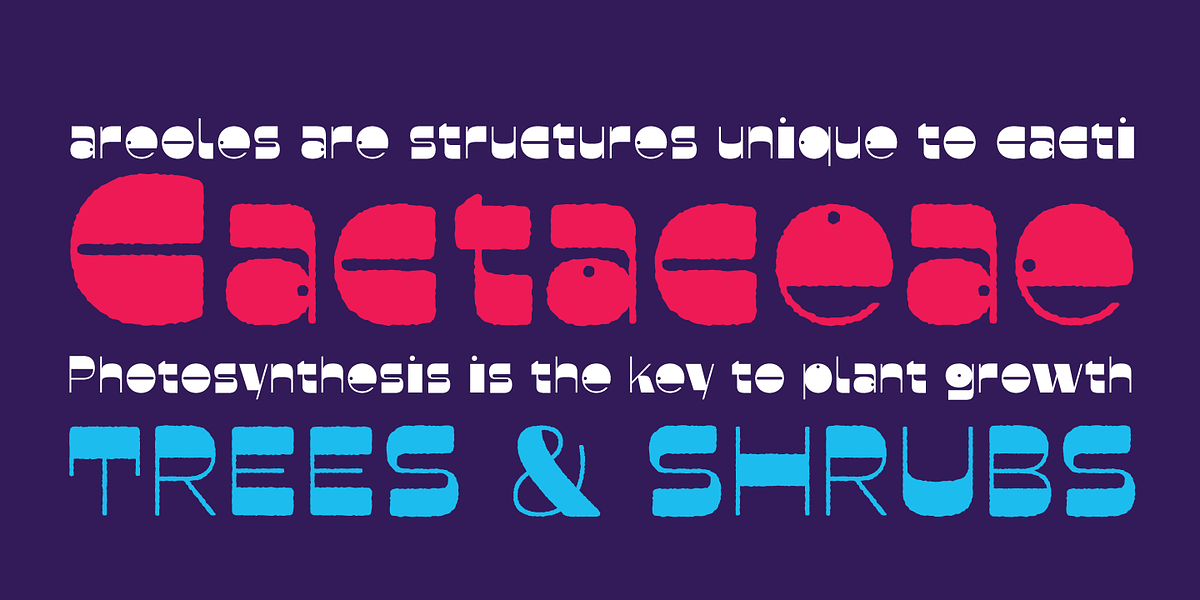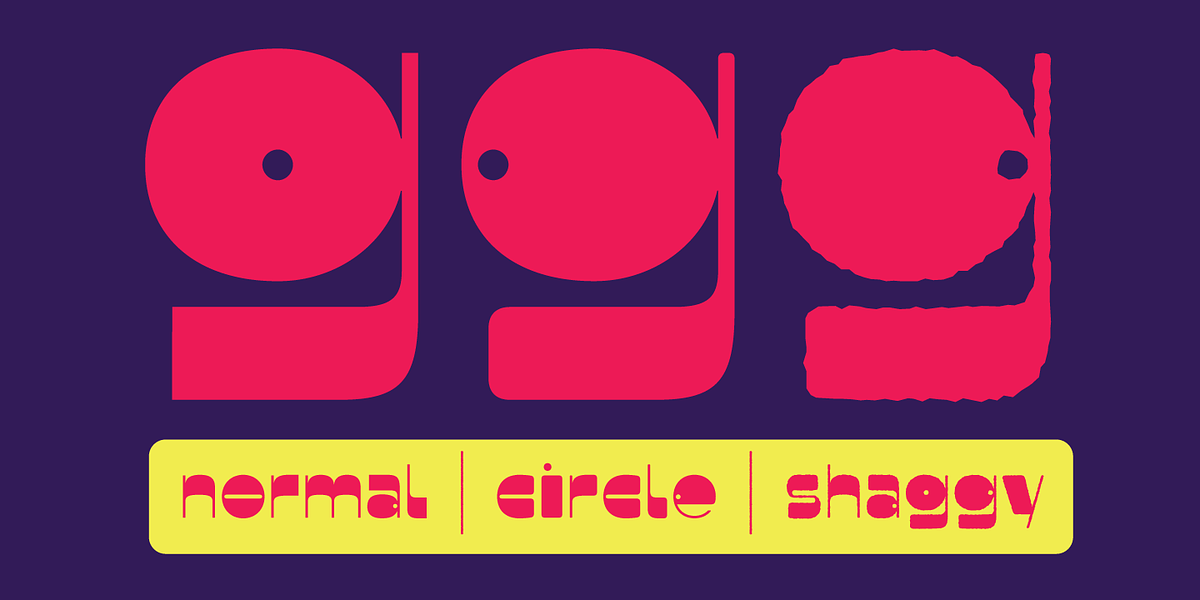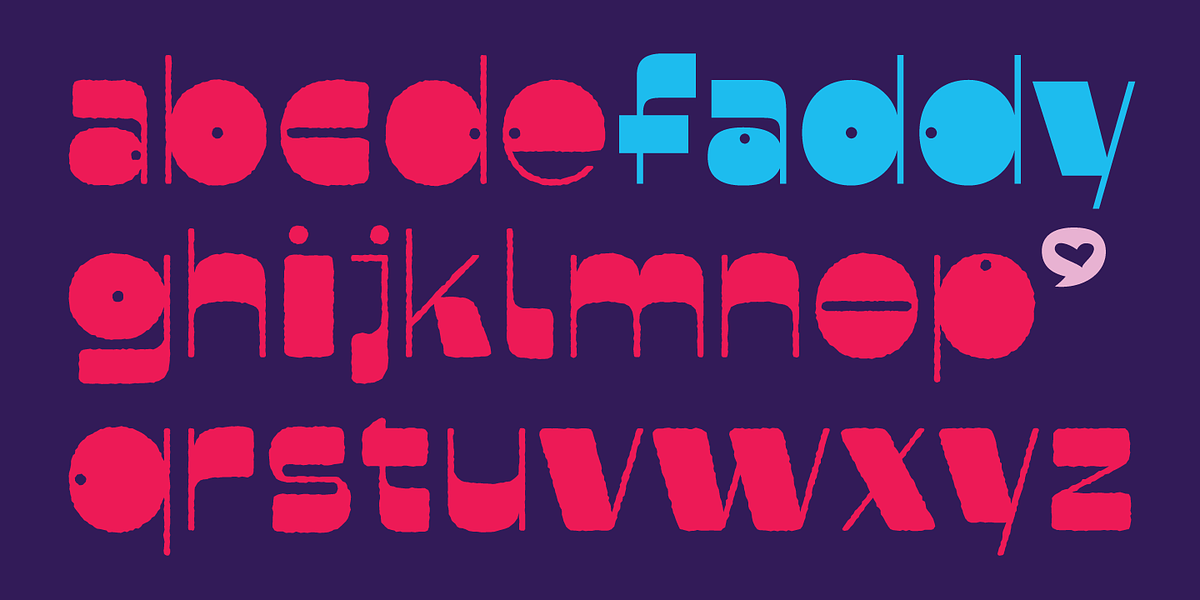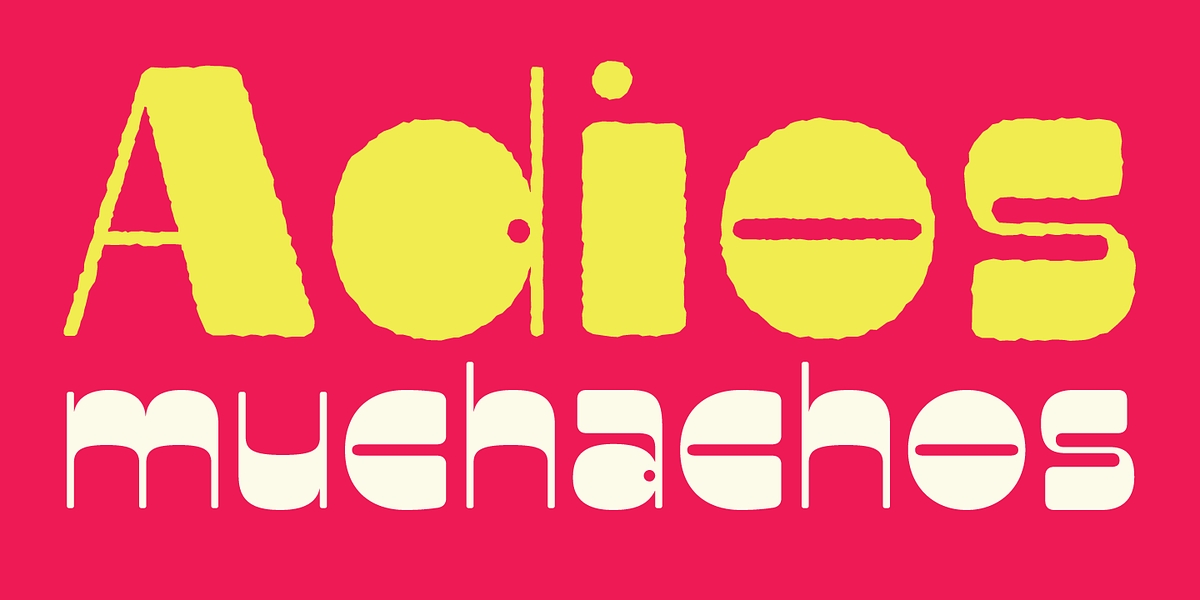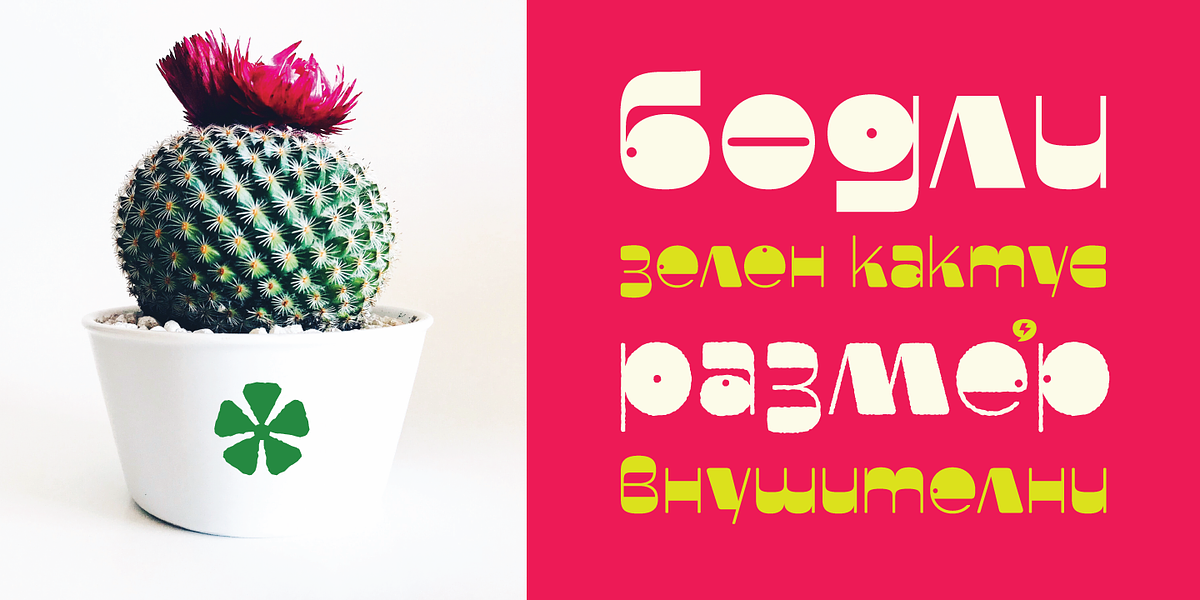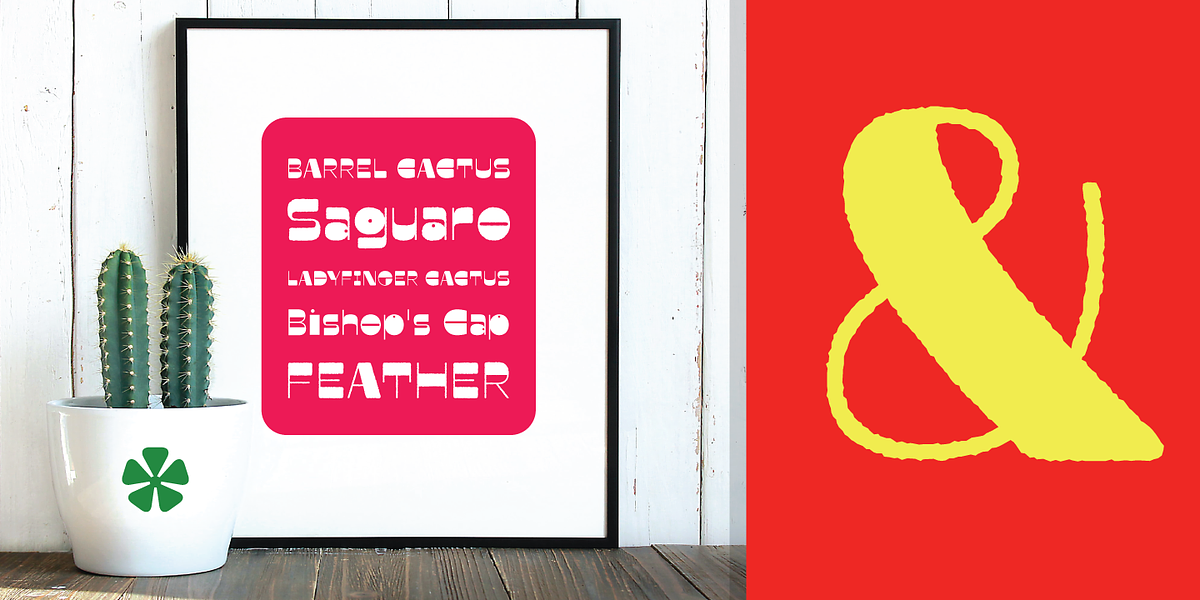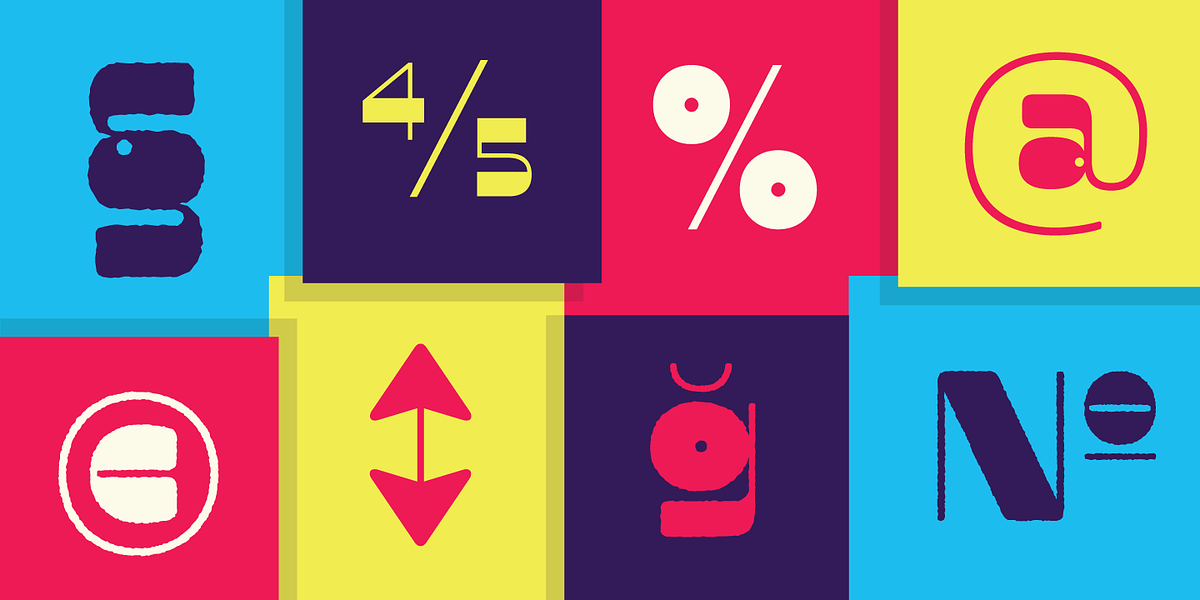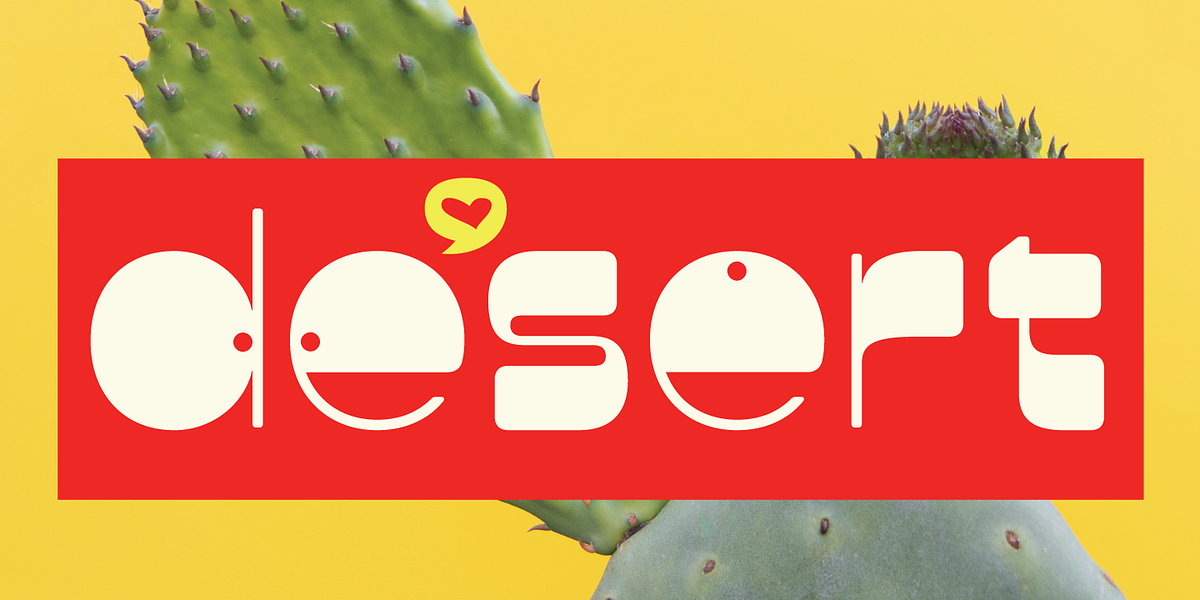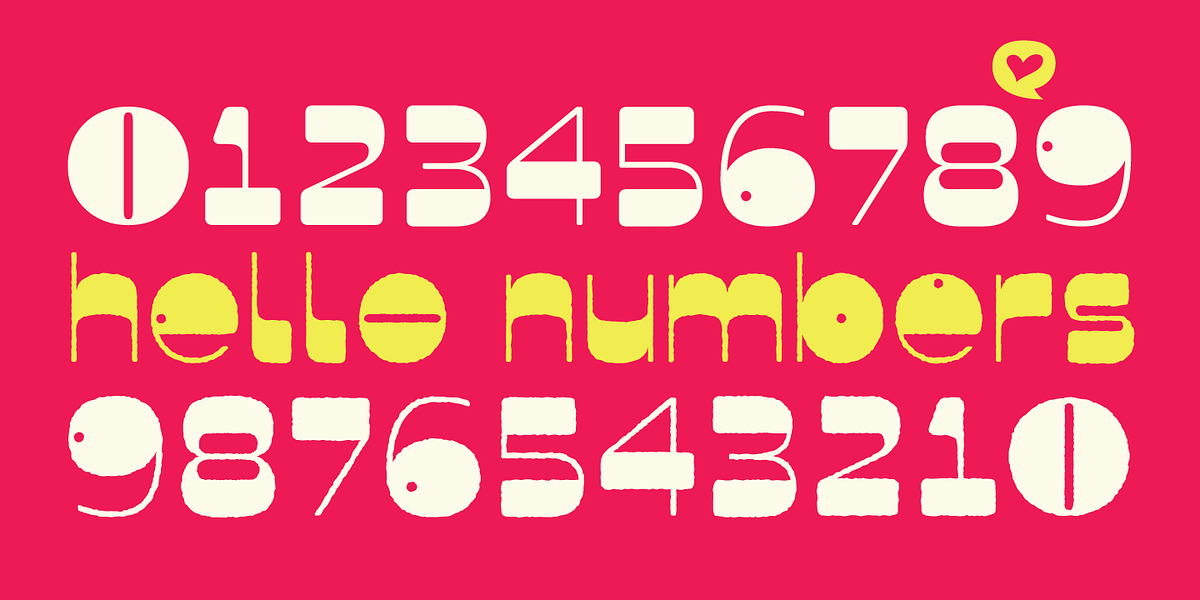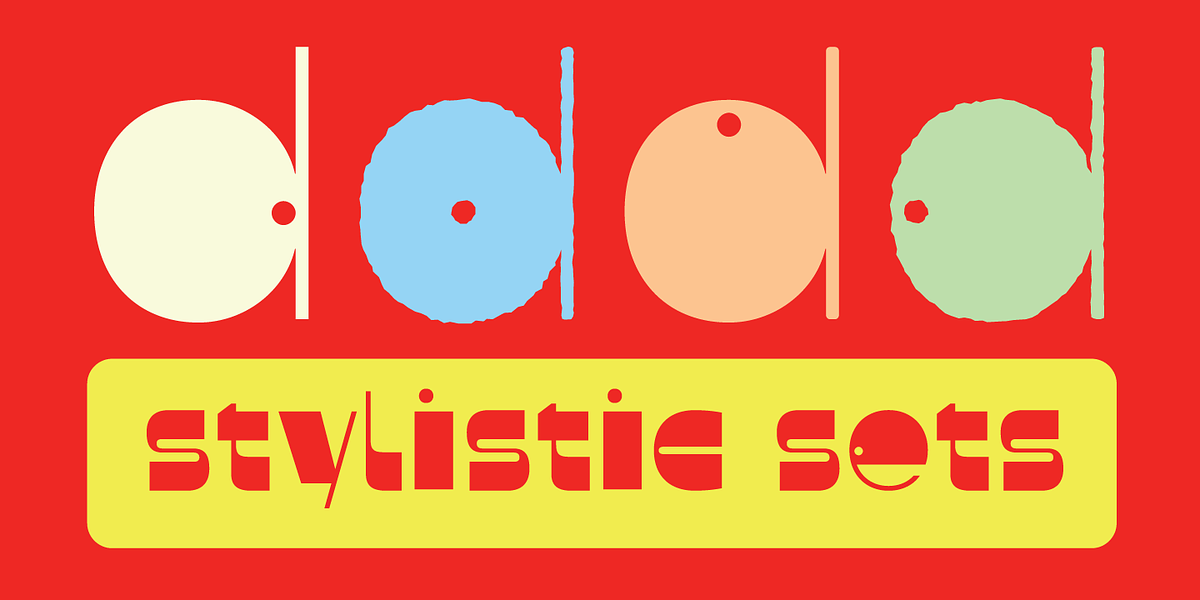
Faddy
Faddy is a retro-inspired display font designed to be expressive and fun. It offers three distinct styles (Regular, Circle, and Shaggy) and includes over 500 glyphs per style. The font comes equipped with OpenType features like superscript, subscript, tabular figures, arrows, currency symbols, and fractions. Additionally, Faddy boasts a variety of stylistic sets allowing users to customize the look and feel of the letters to convey different moods.